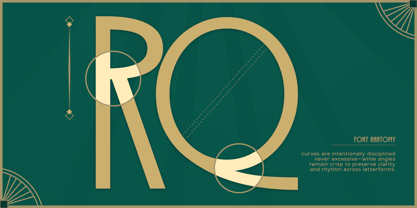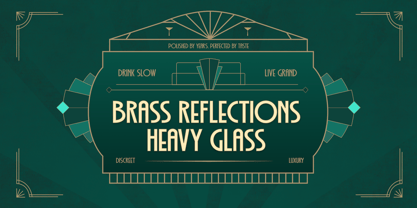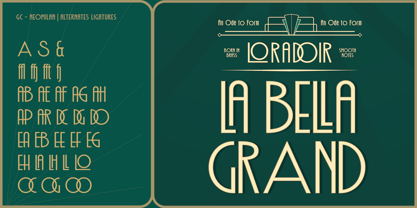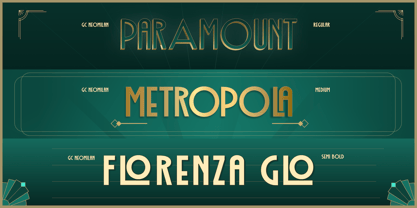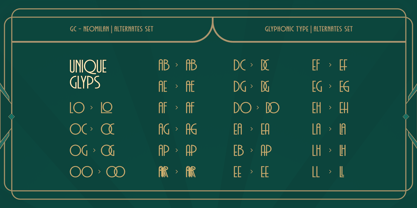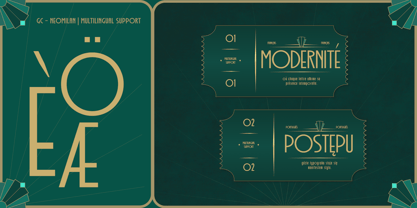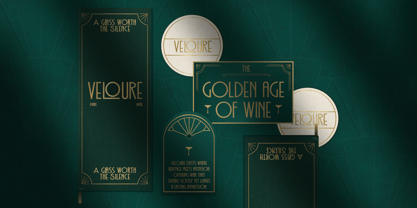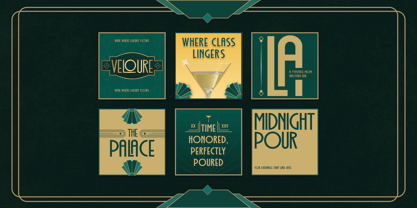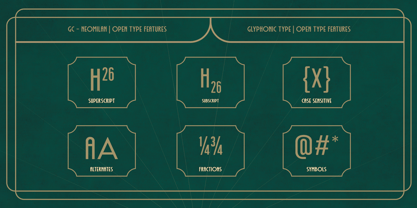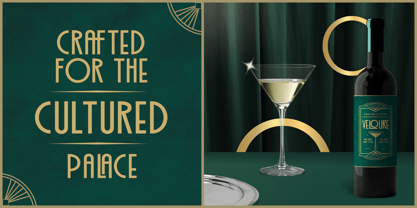
GC Neomilan
The GC Neomilan Font Family was designed by Muhammad Hafiizh Solana and published by Onyx Studio. GC Neomilan contains 6 styles and family package options. More about this family
GC Neomilan – Neo Art Deco Typeface is a refined display typeface inspired by the timeless elegance of Art Deco, reinterpreted through a modern lens. Built on strong geometric structures, sharp angles, and balanced proportions, Neomilan delivers a sophisticated and confident visual voice for contemporary design. Blending classic Deco glamour with clean modern construction, GC Neomilan is designed to stand out in branding, editorial design, posters, packaging, and luxury-focused visual identities. Its distinctive letterforms create striking headlines while maintaining clarity and harmony across compositions. As a modern Art Deco typeface, GC Neomilan offers versatility for both expressive statements and structured layouts. The typeface brings a sense of prestige, rhythm, and architectural beauty—perfect for fashion, lifestyle, premium brands, and creative projects that demand character with precision. With its bold personality and elegant detailing, GC Neomilan bridges past and present, delivering a timeless typographic style built for modern visual storytelling. Features: Uppercase & Lowercase Numbers & Punctuation Art Deco–Inspired Geometric Design Multilingual Support Bring modern elegance and iconic Art Deco character into your designs with GC Neomilan.